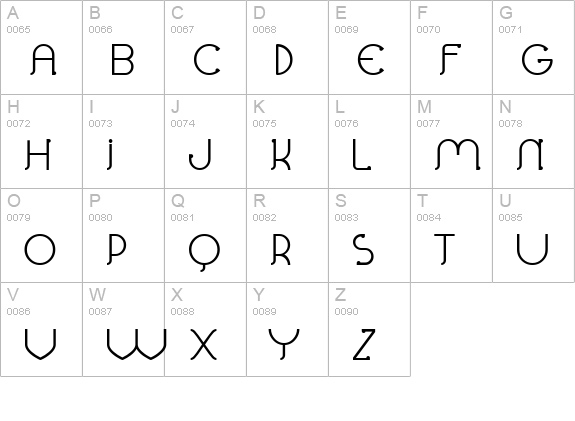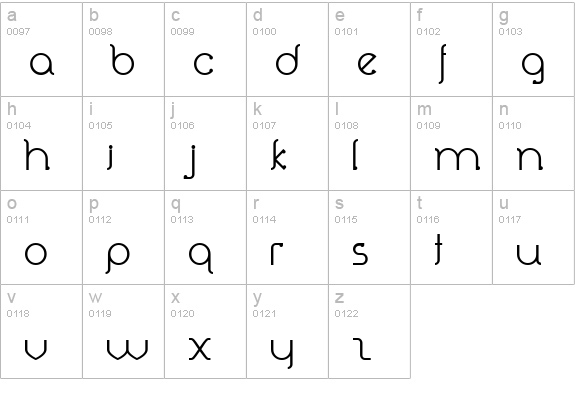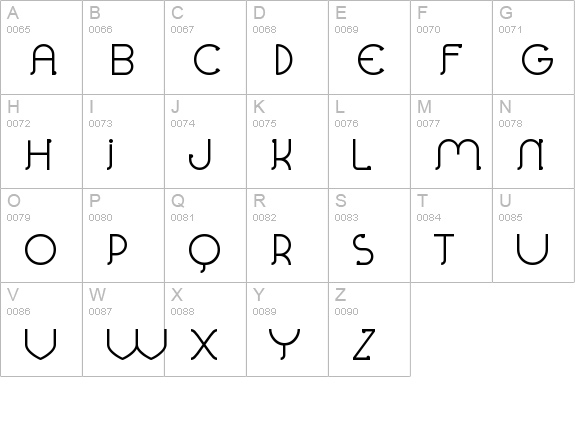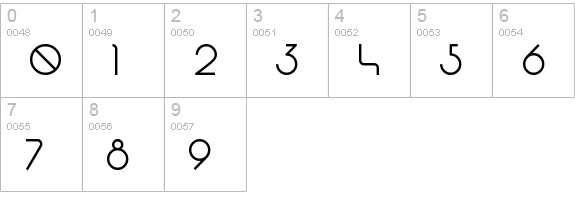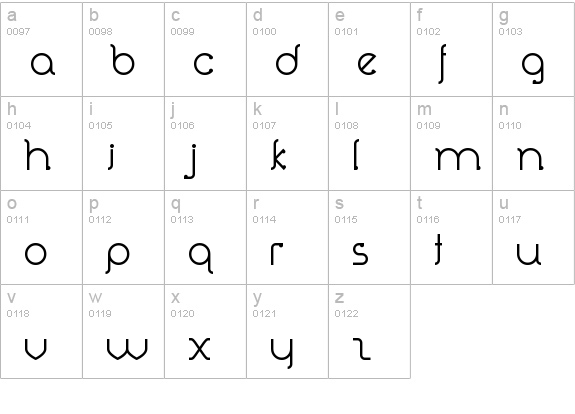
Perolet Font Details
Perolet font is a stunning display typeface that effortlessly combines elegance and versatility. With its sleek lines and refined curves, this font adds a touch of sophistication to any design project. Whether you're creating a logo, a poster, or a website, Perolet font will surely captivate your audience and leave a lasting impression. What sets Perolet font apart is not just its impeccable design, but also its accessibility. This font is available to download for free at FontsMarket.com, making it a perfect choice for both personal and commercial use. Its availability at FontsMarket.com ensures that you can easily obtain this remarkable font without any hassle. Featuring a wide range of characters, including uppercase and lowercase letters, numbers, punctuation marks, and special symbols, Perolet font provides endless possibilities for creative expression. Its clean and legible design ensures readability across different mediums and sizes, guaranteeing that your message will be conveyed effectively. Whether you're looking to create a modern logo for your business, a stylish invitation for an event, or a professional presentation for a client, Perolet font is the ideal choice. Its timeless design and versatility make it suitable for a variety of design projects, from branding to advertising. Download Perolet font for free at FontsMarket.com today and unlock the potential of this exceptional typeface. With its stunning aesthetics and wide range of applications, Perolet font is sure to elevate your designs to new heights. Don't miss out on the opportunity to enhance your creative projects with this beautiful and freely available font.